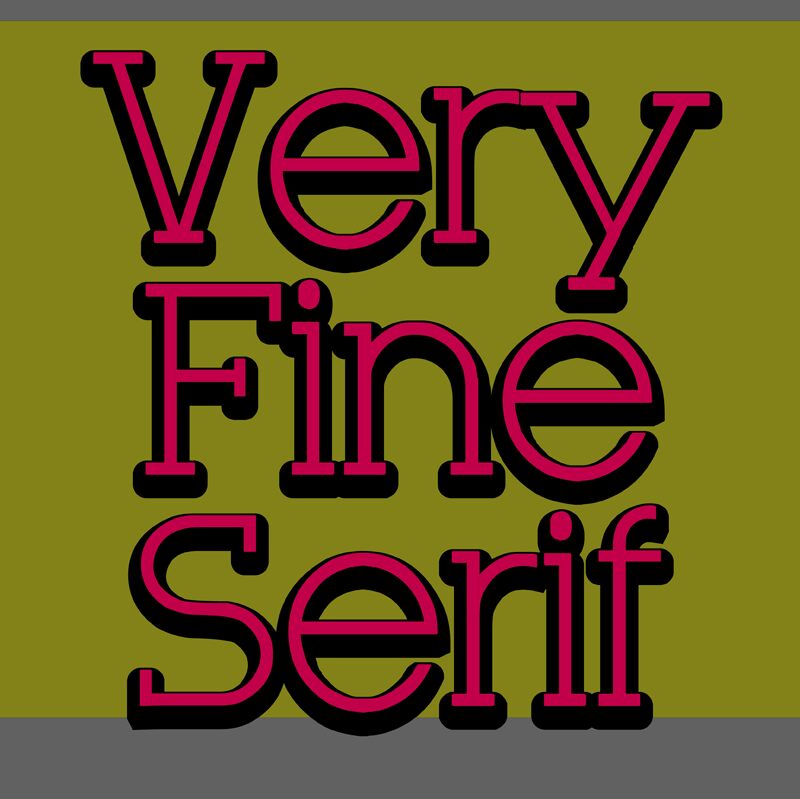
Very Fine Serif Regular
Very Fine Serif font by Galdino Otten Fonts is a free ultra-light serif typeface with hairline strokes and crisp, squared curves. Letters feel almost drawn with a technical pen: airy spacing, firm little slabs, and a calm, measured rhythm that keeps even long words looking sleek instead of fussy. From the Very Fine Serif family, it brings a cool, contemporary refinement wherever you need quiet elegance with a modern edge.
Using Very Fine Serif font, headlines and logotypes take on a sharp, architectural feel that shines on fashion branding, magazine covers, minimalist posters, portfolio sites, and packaging. This free font really comes alive at larger sizes, where its fine lines stay clean and intentional. For supporting text, pair it with a neutral grotesk sans in a slightly darker weight to keep layouts balanced and readable.